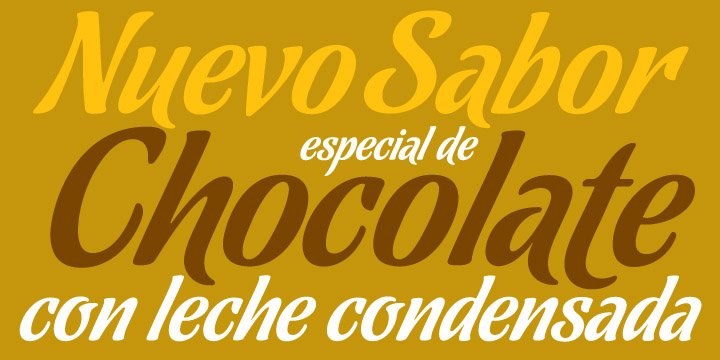
Most everyone agrees that chocolate is irresistible.
Now the Koziupa & Paul tag team is offering you a choice of three irresistible flavors, from the bittersweet Amargo, to the mouth-watering Dulce, you now have three different possibilities for the pleasure of your taste buds.
The OpenType versions includes de 3 flavors all in one.